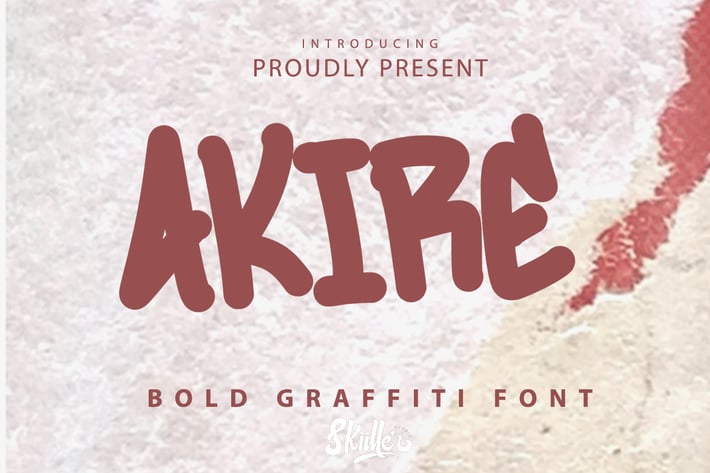
Akire - Graffiti Font
Akire a Graffity font. This font will very suitable for your fun project like children party, cute quotes, or any cute fun related projects. Grab it now !